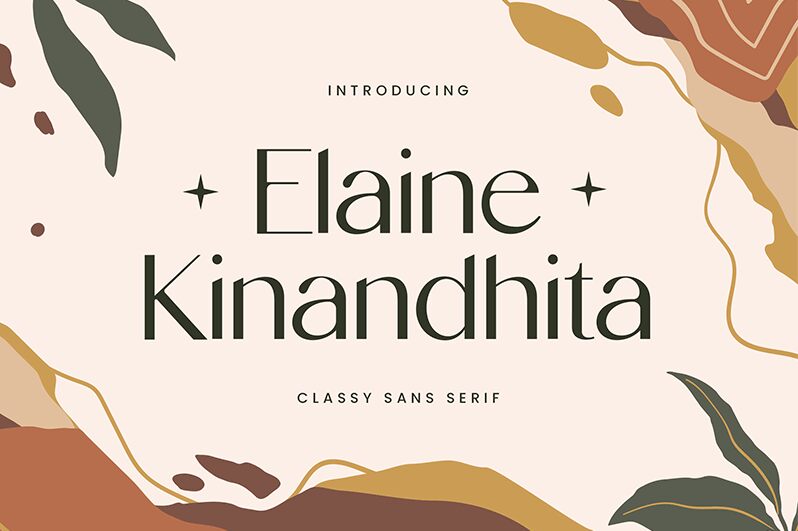
ElaineKinandhita Regular
Elaine Kinandhita is a free sans serif typeface created by UI Creative. The sans serif typeface comes in lowercase letters, numbers, symbols and a collection of punctuations and is great for poster, flyers, presentation, branding, social media, web design, invitation, logo, packaging design and other projects of your choice.
The Elaine Kinandhita font combines elegance and modern design, and can also be used on your personal projects.
Elaine Kinandhita is not the same as many others. It’s simple, yet modern; its thin and delicate lines bring to life elegance and uniqueness.